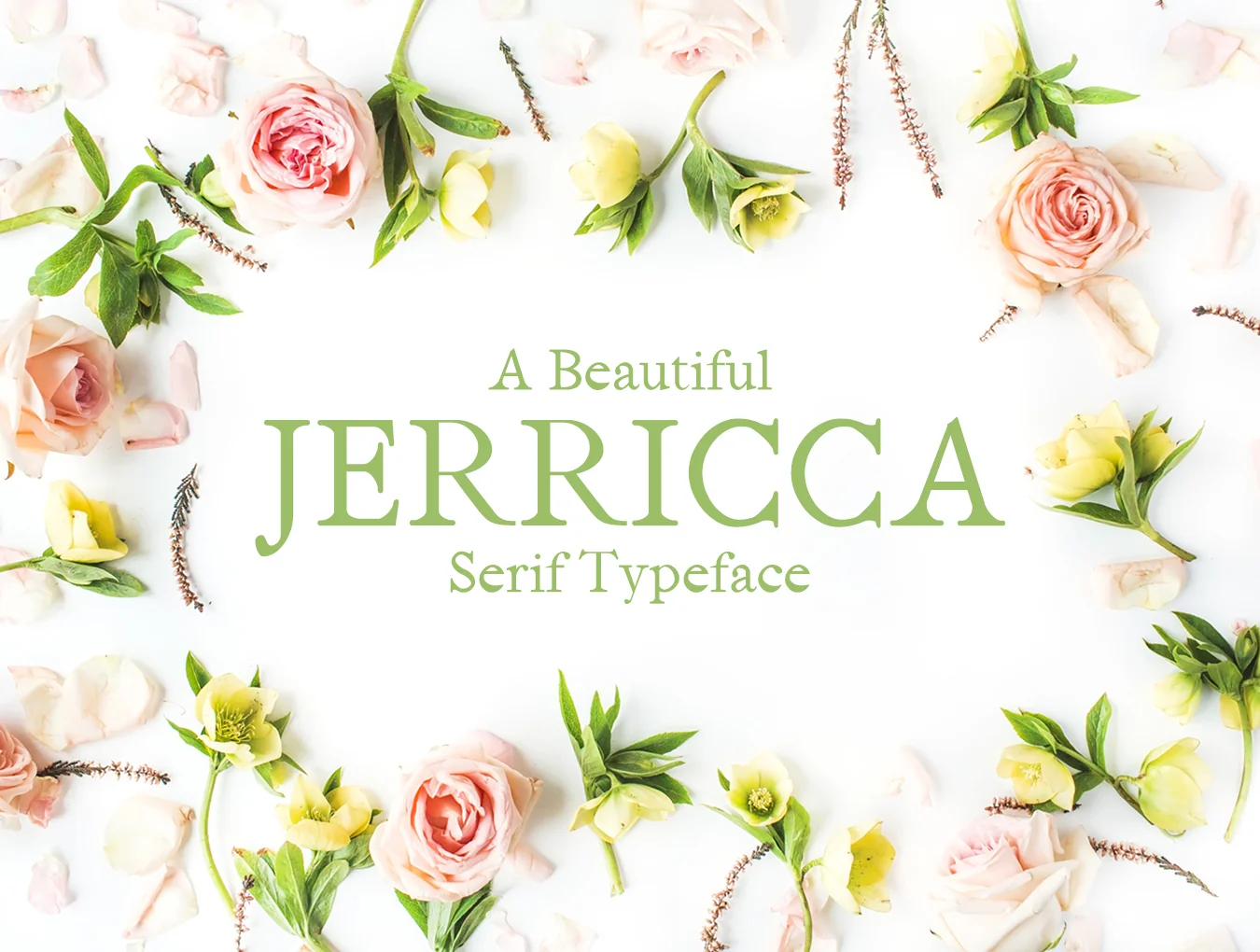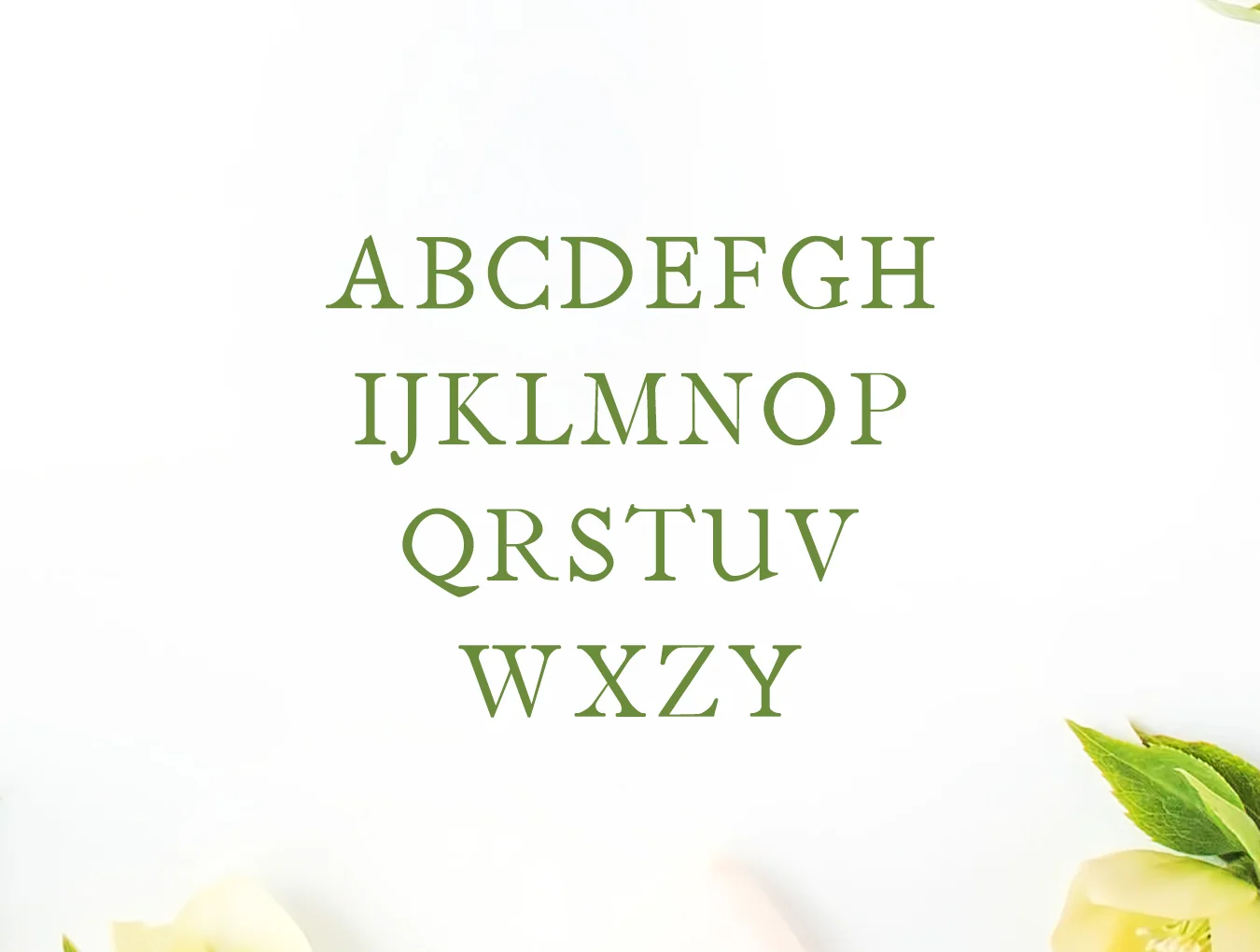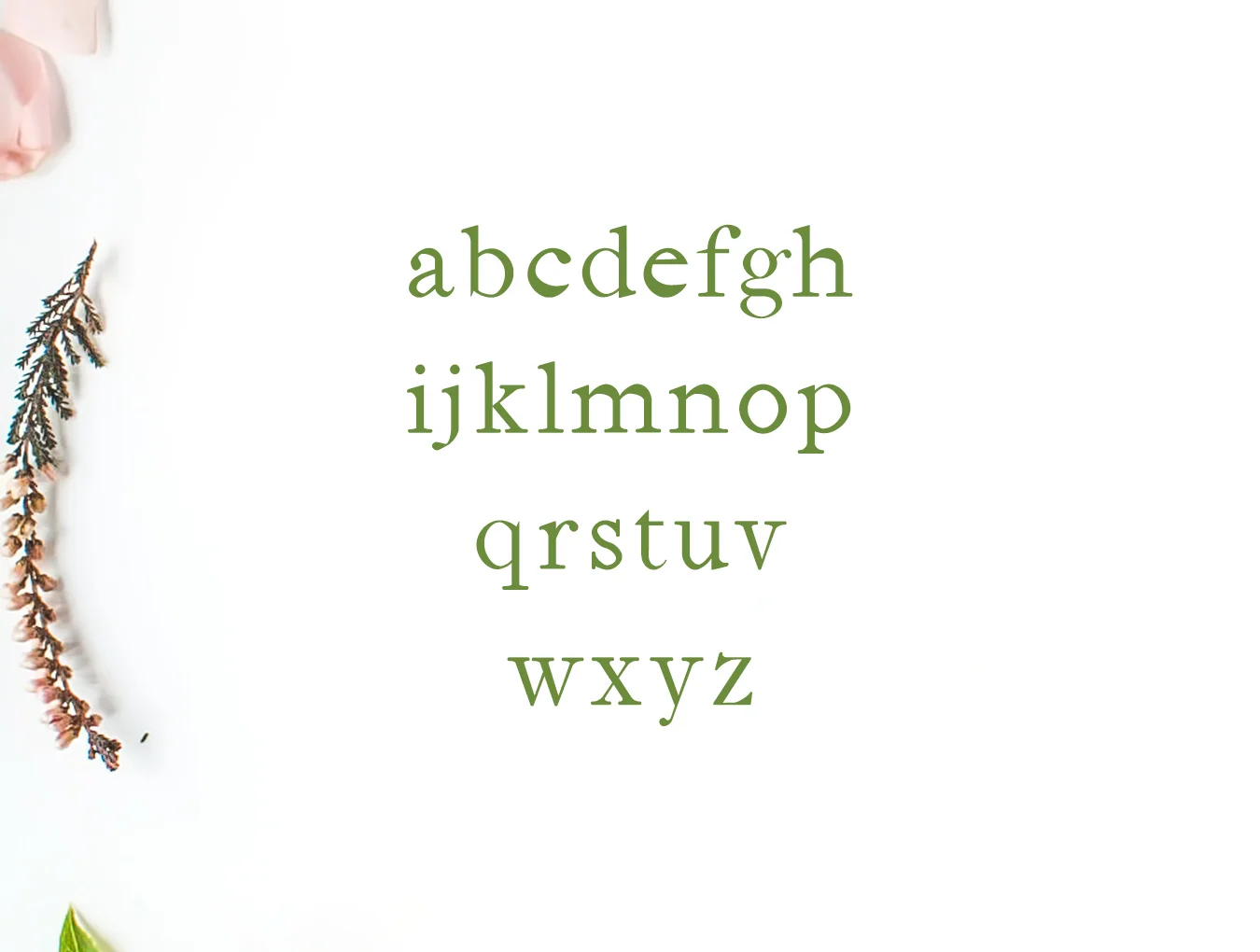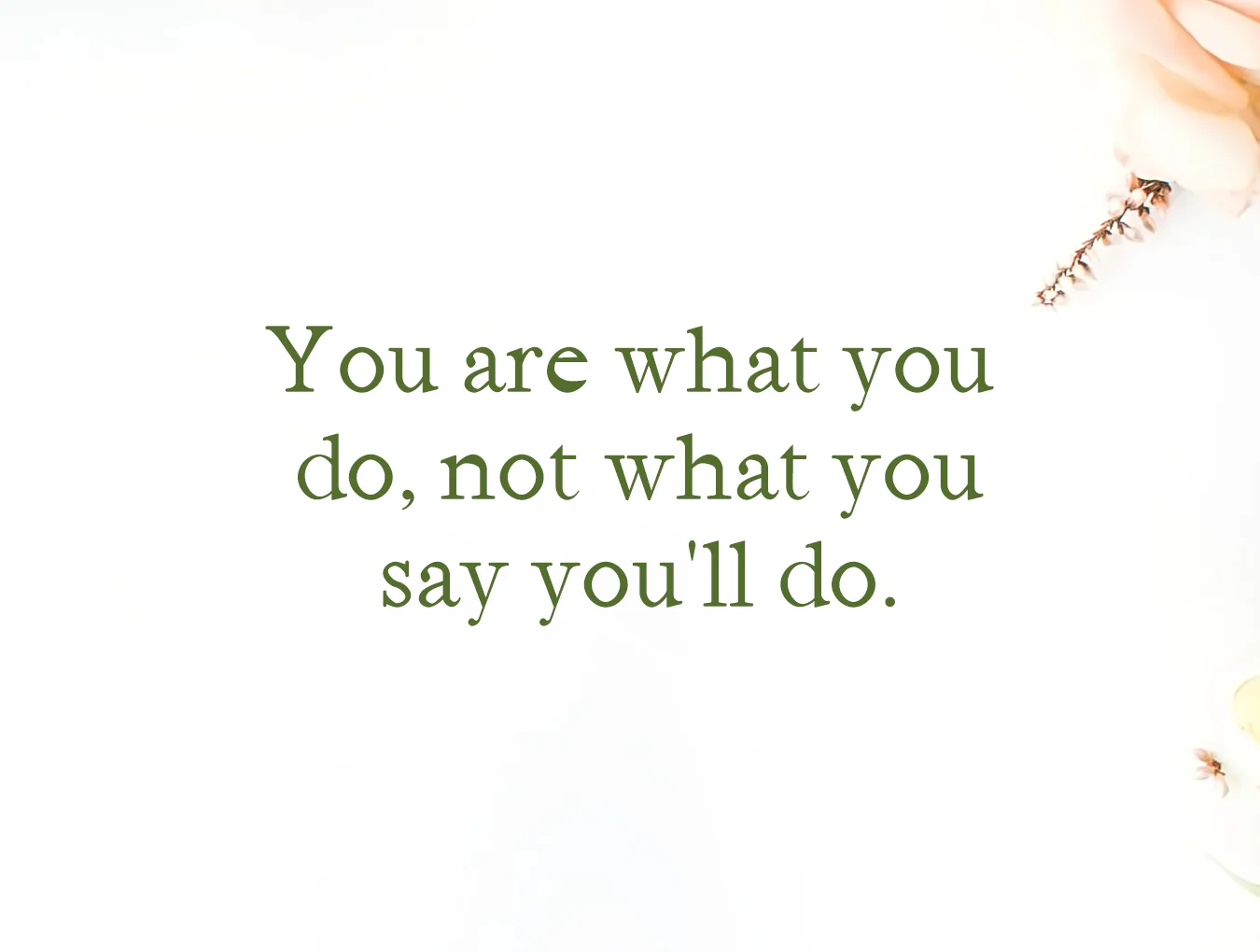
Jerricca Serif Typeface
Jerricca Serif 4 Typeface Family Set
Serif-style typeface
251 included glyphs
Regular and Light weights
Jerricca Serif Typeface is a clean serif family with four weights and a distinctive contemporary style. Ideal for elegant logos, headings, websites, and brand designs, it shines in uppercase with generous spacing for a refined feel, while mixed case creates a timeless, polished look.